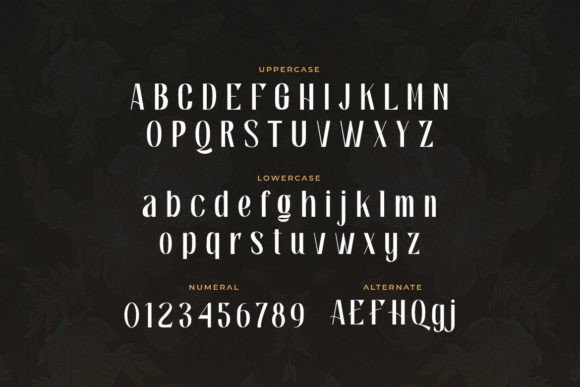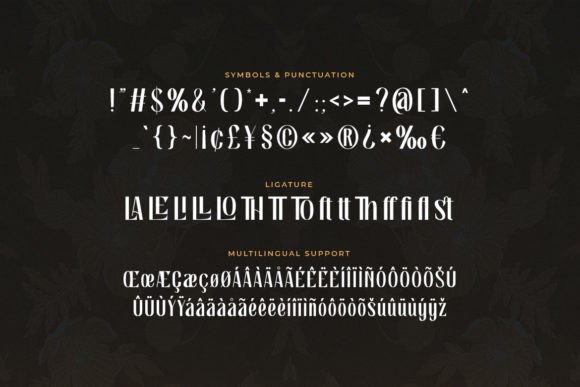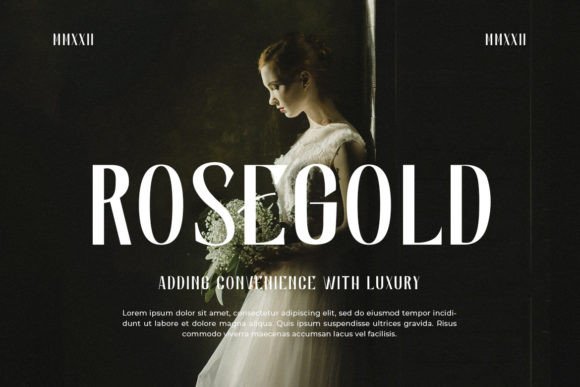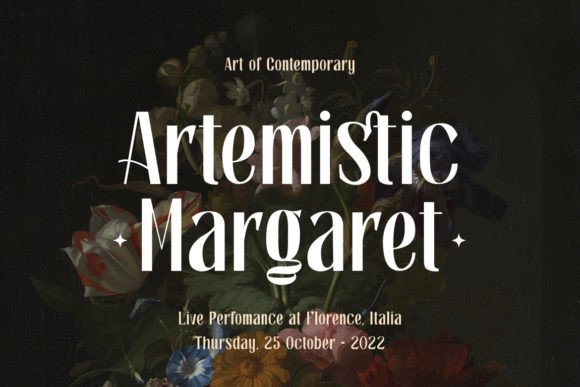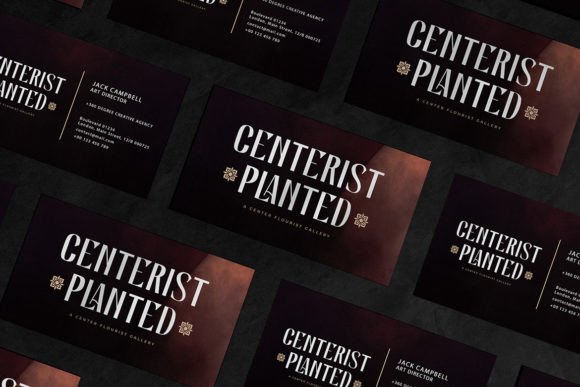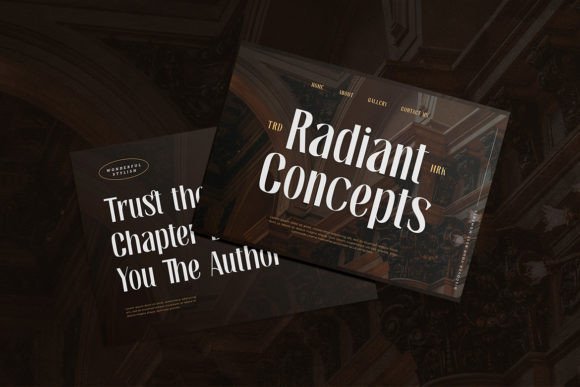
Discover the Perfect Harmony of Style and Function with Beniqno Font
As a designer, have you ever been stuck on finding the perfect font to elevate your project? The cursor blinks, and the creative well seems to run dry. Suddenly, a spark of inspiration strikes, and you start envisioning the perfect typography that perfectly captures the essence of your vision.
Enter Beniqno Font, a sleek and sophisticated condensed sans serif font designed to elevate your designs to new heights. This versatile font is perfect for creating a luxury logo and branding, classy editorial design, magazine, and much more. With Beniqno Font, you can convey elegance, sophistication, and refinement in a single stroke, making it an invaluable asset for designers seeking to create stunning visual identities.
Beniqno Font Key Features
- Font Family: Beniqno Font is a sans-serif font family designed for digital use.
- Font Size: Beniqno Font is available in 6 different font sizes, ranging from 10pt to 72pt.
- Resolution: Supports high-resolution displays, ideal for use on retina screens and high-PPI devices.
- Unique Characteristics: Beniqno Font features a modern and clean design with a unique geometric twist, making it suitable for a wide range of digital applications.
- Language Support: Supports multiple languages, including Latin, Cyrillic, and Greek alphabets.
Beniqno Font Review
First off, I have to say that I was excited to dive into the Beniqno Font, and for good reason. Here are a few things that I think really shine: ✨
- Unique aesthetic: Beniqno has a distinct, futuristic feel that sets it apart from other fonts in its class.
- High legibility: This font is incredibly easy to read, even at smaller sizes, which is a must for any designer.
- Customization options: Beniqno offers a range of weights and styles, allowing designers to really make the most of this font.
However, as with any font, there are some limitations to consider: ⚠️
- Limited language support: While Beniqno is great for English, its support for other languages is lacking.
- Not ideal for body text: Due to its futuristic feel, Beniqno might not be the best choice for large blocks of text.
Overall, I think Beniqno is a solid choice for designers looking to add some flair to their projects. While it may not be perfect, its unique aesthetic and high legibility make it a great option for the right use case.
Getting the Most Out of Beniqno Font
Beniqno Font is a versatile font that can be used in a variety of applications. To get the most out of it, try the following:
- Use Beniqno Font in combination with other fonts to create a unique and eye-catching design.
- Play with the font’s color and texture settings to add depth and dimension.
Beniqno Font is commonly used in:
Alternatives to Beniqno Font for Designers
Open Sans is a popular sans-serif font that is highly legible and versatile. It’s ideal for use in digital products, such as websites, apps, and mobile interfaces. Open Sans is a great alternative to Beniqno Font when you need a clean and modern look.
Comparison: Open Sans is more modern and clean compared to Beniqno Font, which has a more vintage feel. Open Sans is also more legible at small font sizes.
Lato is a sans-serif font that is highly customizable and suitable for use in a variety of contexts, from digital products to print materials. It’s ideal for use when you need a font that is both modern and elegant. Lato is a great alternative to Beniqno Font when you need a font that is both sophisticated and approachable.
Comparison: Lato is more elegant and sophisticated compared to Beniqno Font, which has a more casual feel. Lato is also more versatile and can be used in a wider range of contexts.
Montserrat is a sans-serif font that is highly legible and suitable for use in digital products, such as websites, apps, and mobile interfaces. It’s ideal for use when you need a font that is both modern and urban. Montserrat is a great alternative to Beniqno Font when you need a font that is both edgy and approachable.
Comparison: Montserrat is more modern and urban compared to Beniqno Font, which has a more vintage feel. Montserrat is also more legible at small font sizes.